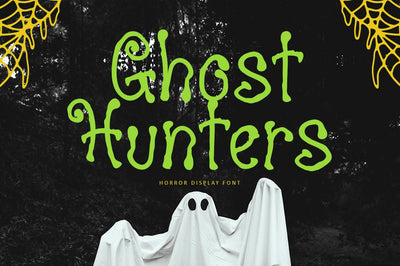
Ghost Hunters - Horror Display Font
Ghost Hunters is a display brush spooky font with horror halloween consept. The strokes alternates make this font outstanding and looks like grunge brush line very great for logotype and any promotion about Halloween Seasons.
This type of font perfectly made to be applied especially in headline, apparel logo, food logotype, fashion, poster film, music, invitations or greeting cards or any type of advertising purpose. This font support Multilingual Languages.